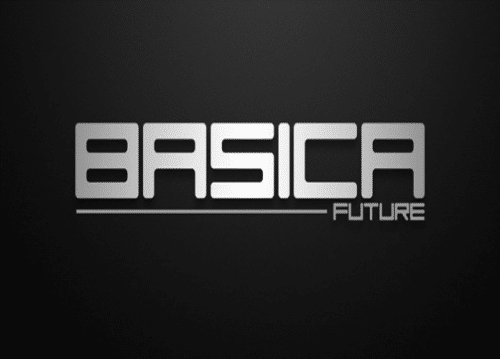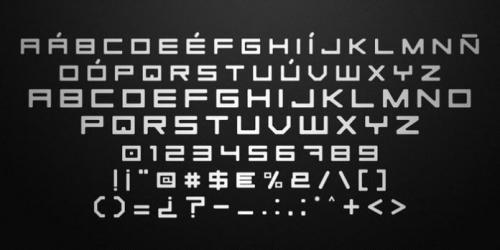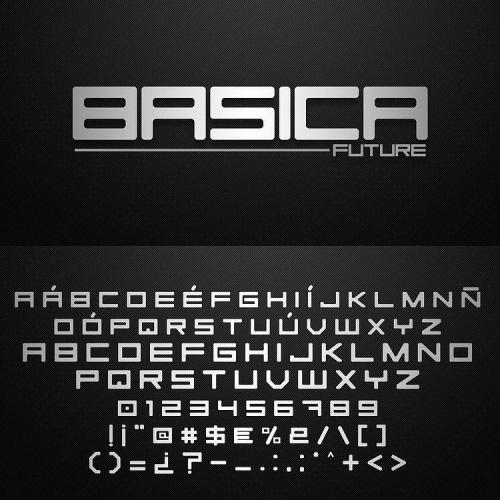
Say hello to Basica Font, is a simple & cute sans-serif typeface perfect for headlines, big text, branding, logotypes & display usage.
This font can be excellent choice for creating outstanding logos, promotional content and marketing graphics that can bring uniqueness and freshness.
- Designer: Qbotype Fonts